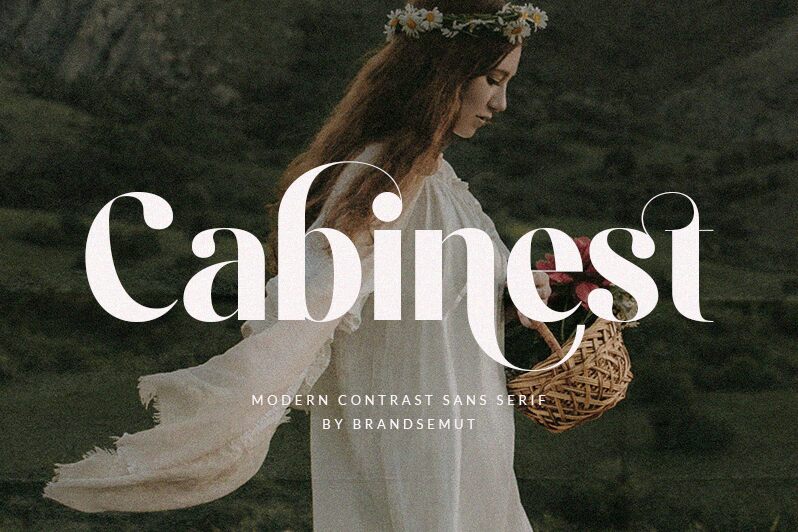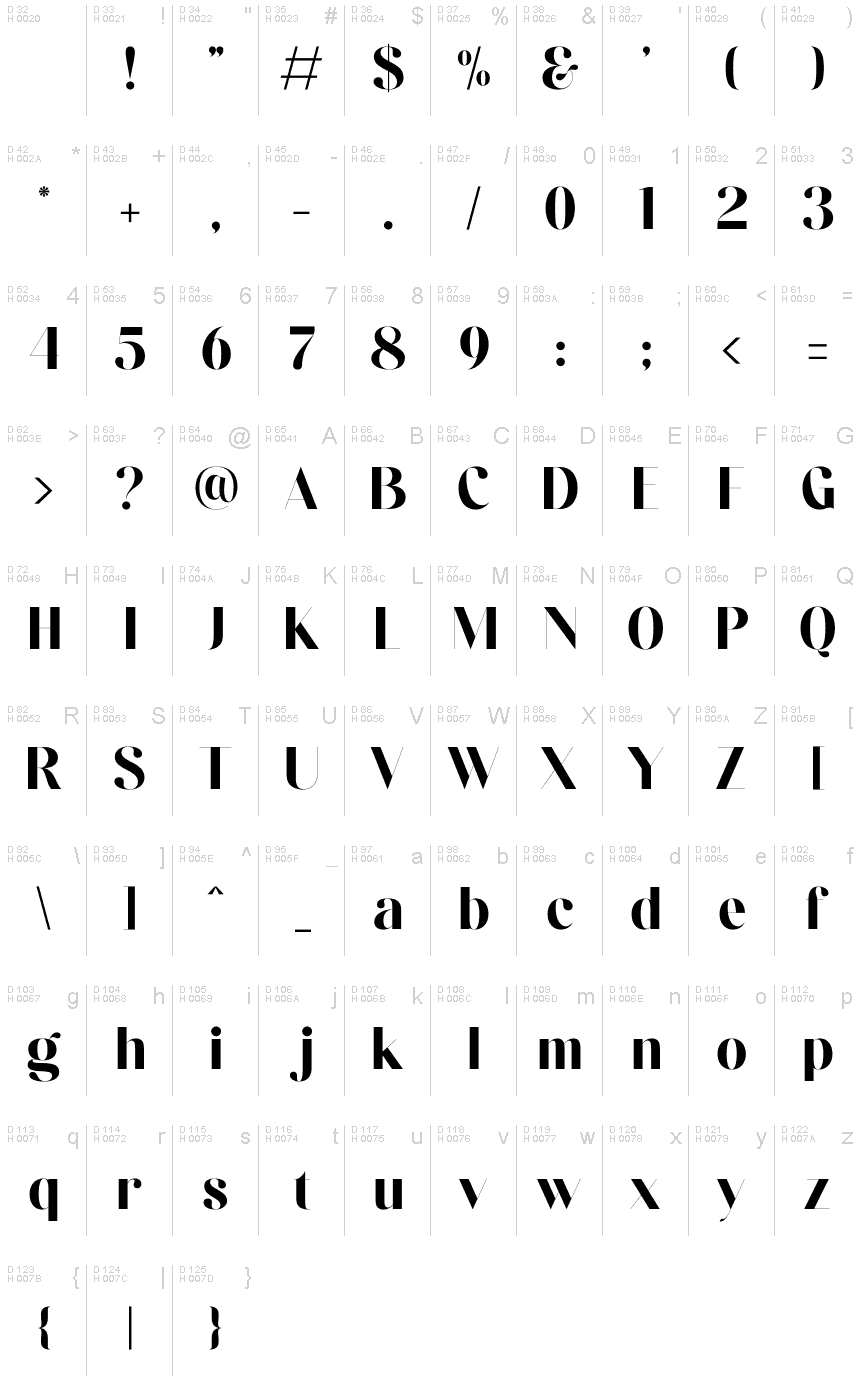
Cabinest
Cabinest, designed by BrandSemut, is a bold and modern contrast sans serif font.
With its sleek lines and strong presence, Cabinest is perfect for branding projects that aim to make a bold statement. Its clean and legible design also lends itself well to editorial layouts and magazine spreads, adding a touch of sophistication to any publication. Whether used in headlines or body text, Cabinest commands attention and exudes confidence.
This versatile font is equally suitable for digital interfaces, creating an engaging user experience that is both contemporary and refined.